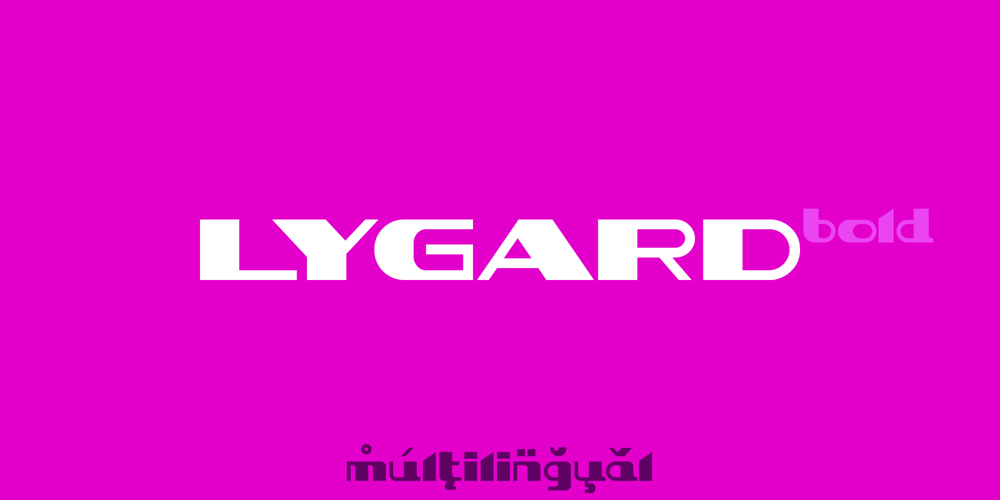
Lygard
Lygard font
Lygard Font Family was designed by Roland Hüse and published by Sentavio. Lygard contains 1 styles and family package options. LYGARD Bold is modern stylish font good looking as header and text both.Good for Fashion, Games, Sports, Technology etc. Multilingual Latin symbols are included.